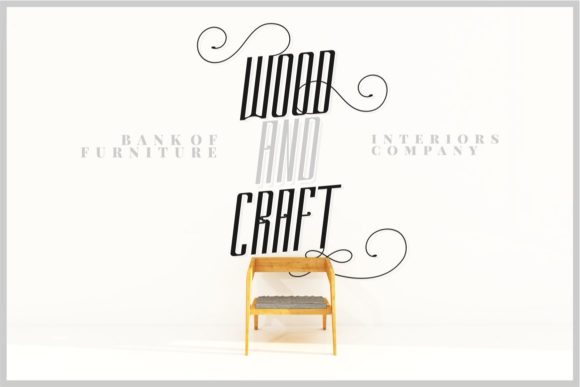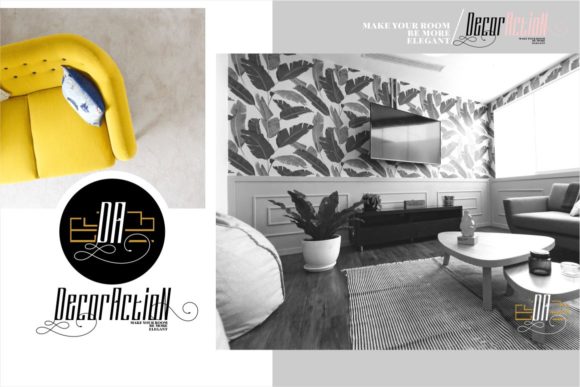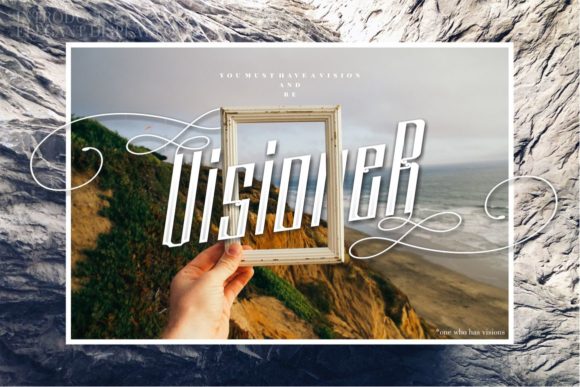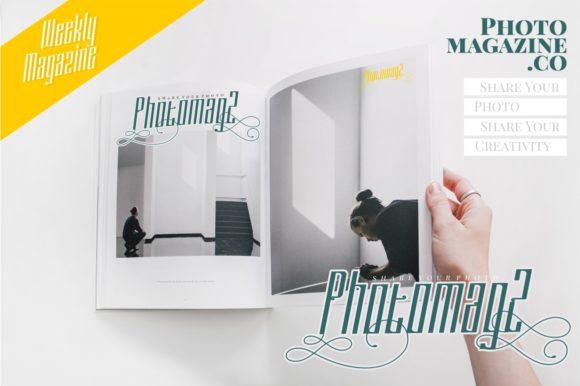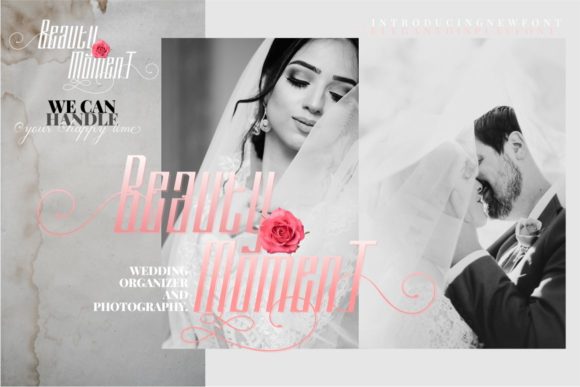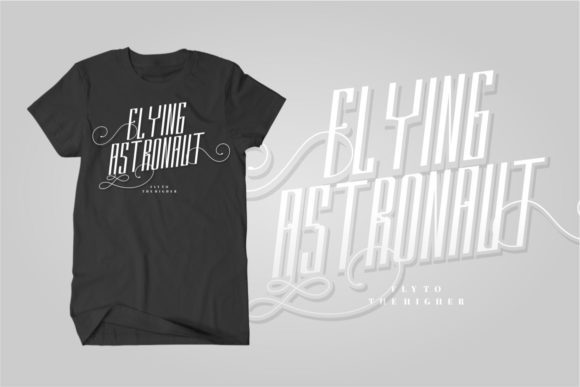
Discovering Delacruz Font
There’s nothing quite like the rush of excitement you feel when working on a creative project, and for designers, that moment often comes when you stumble upon the perfect font to bring your vision to life. For me, that moment happened when I discovered the stunning Delacruz Font, a bold display font with a charming twist that adds a touch of elegance to any design.
As I delved deeper into the world of Delacruz Font, I realized just how valuable it is for designers looking to elevate their work. With its high-quality design and transparent background, this font is a game-changer for any creative project. And the best part? It’s available for free download, making it an accessible design resource for designers of all levels.
Key Features of Delacruz Font
- High-quality design font ideal for creative projects and presentations
- Includes a wide range of glyphs and characters for versatile use in various creative projects
Honest Review: Delacruz Font
The Delacruz Font comes with a transparent background, making it perfect for overlays or other design elements that require a clear background. The high quality of the font is noticeable, even at smaller sizes.
- ✨ High quality font with clear and crisp lines.
- ✨ Perfect for creative projects that require a clean and modern look.
- ⚠️ Limited language support, which may be a concern for designers working on projects that require a wide range of languages.
- ⚠️ Not ideal for projects that require a bold or dramatic font, as the Delacruz Font has a more minimalist aesthetic.
Overall, I’m impressed with the Delacruz Font and would definitely consider using it on future projects. It’s a solid addition to any designer’s toolkit, and its high quality and transparent background make it a versatile design resource.
Tips for Getting the Most Out of Delacruz Font
Use Delacruz Font for creative projects that require a high-quality, free download font with a transparent background.
Experiment with different font sizes and styles to achieve the desired design effect.
Delacruz Font is ideal for:
Designing business cards, brochures, and flyers.
Creating social media graphics and posts.
Developing branding materials, such as logos and letterheads.